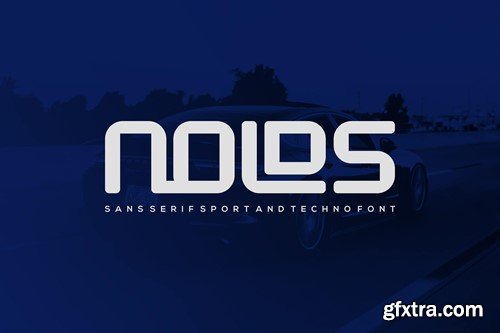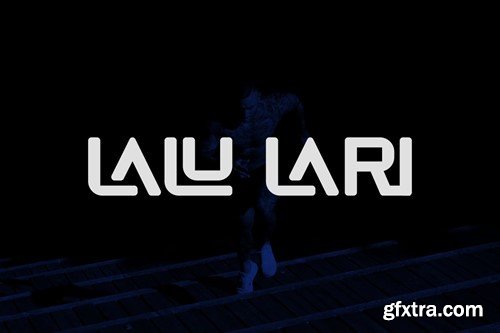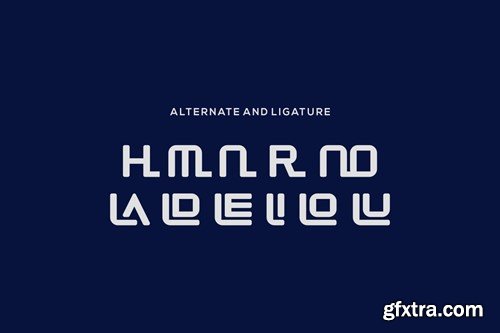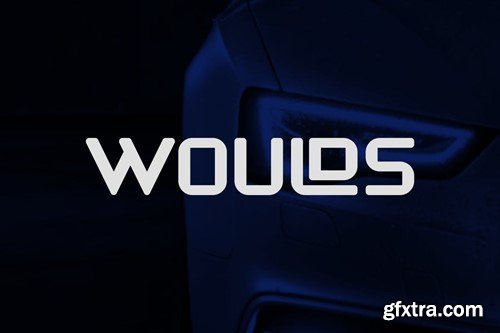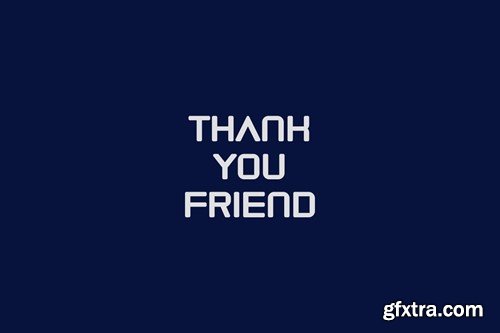
Nolds - Sans Serif Sport And Techno Font 86UPZ33
Nolds - Sans Serif Sport And Techno Font
Introducing our new product Nolds Font - Sans Serif Sport And Techno Font
Nolds Font - Modern Font is a bold and authentic display font. The font is suitable for any branding project like logo, t-shirt printing, esport, and many more. outstanding in a wide range of contexts.
• Nolds Uppercase
• Nolds Alternate
• Nolds Ligature